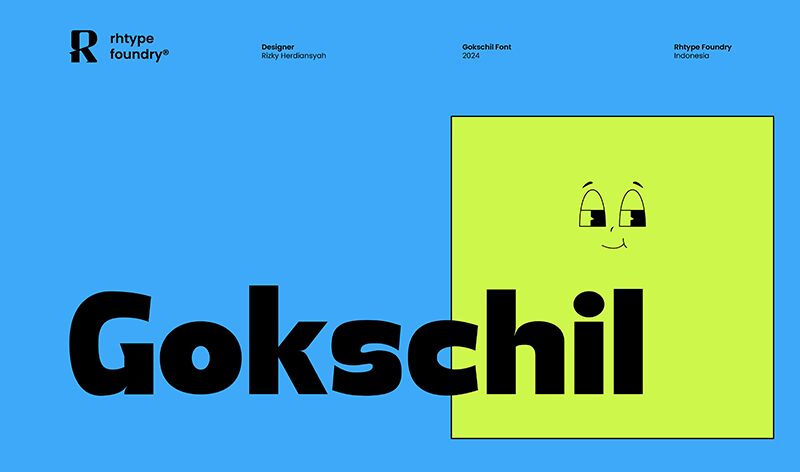
Gokschil
Gokschil font by Rizky Herdiansyah of Rhtyfoundy is a free sans serif font with a bold, rubbery presence and confident, straight-cut edges. The wide, heavy letters feel almost inflated, yet the tight construction keeps everything compact and punchy, so your words land with real weight instead of visual clutter. It has a playful toughness—soft curves where you want friendliness, squared forms where you need impact.
Using Gokschil, you get a headline voice that grabs attention for posters, logos, packaging, social media graphics, esports branding, and bold website hero text. This free font shines at larger sizes where its chunky shapes can really breathe; pair it with a clean, lighter-weight grotesk for body copy to keep your layouts balanced and readable.